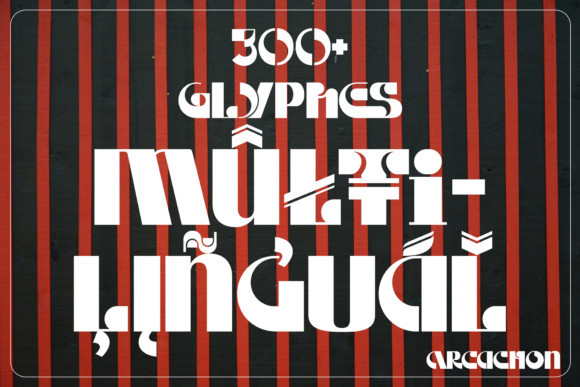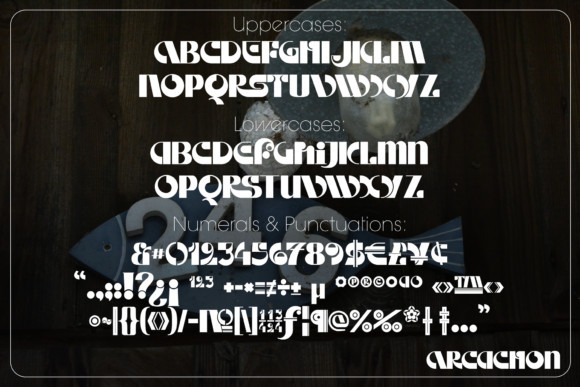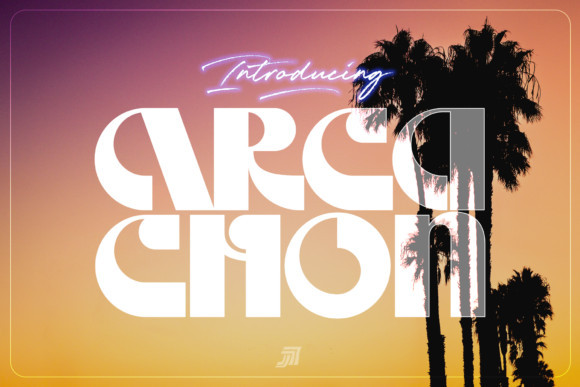
Arcachon Font
Inspired by the welcome sculpture of the French city Arcachon, Arcachon is an incredible Art Deco display font with a unique feel. Get inspired by its bold charm!